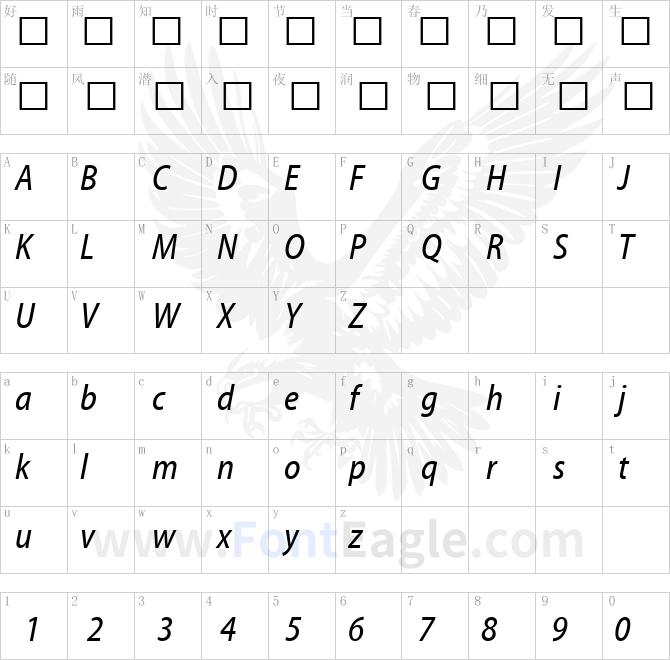
- Font name:Myriad Condensed Web
- Font Subfamily ID:Adobe:Myriad Condensed Web Italic
- Font Full Name:Myriad Condensed Web Italique
- Postscript:Myriad-CnItWeb